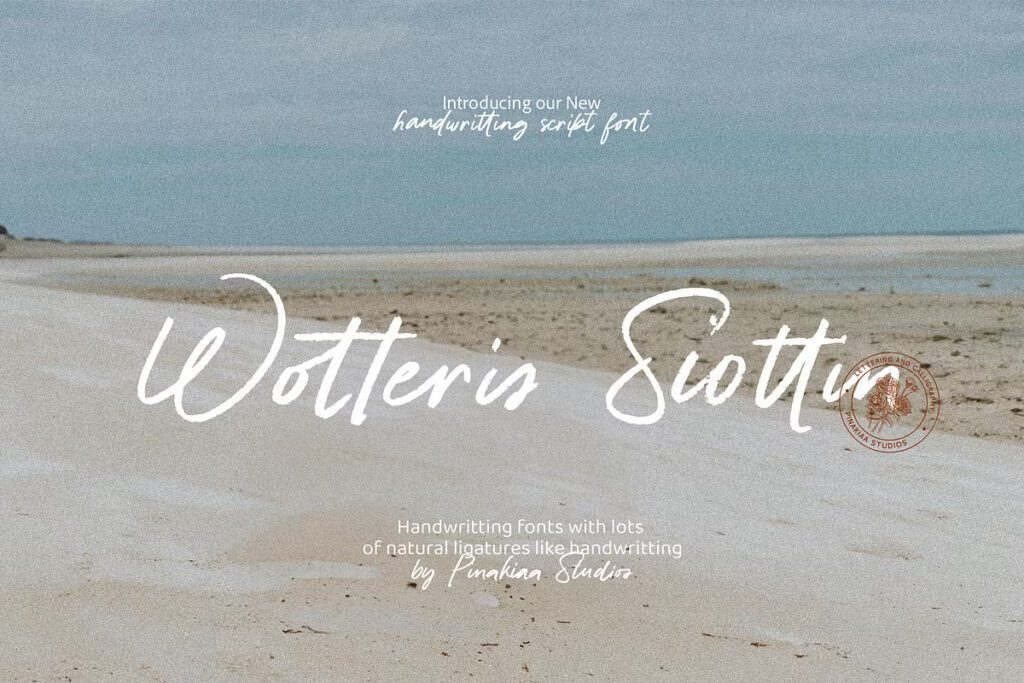
In the designer’s words
The listing on both Creative Market and MyFonts is written in the first person by the designer:
- “Wotteris Siottin is a handwriting font that has many connected letters to make it more beautiful and easy to read, because it is like most people’s handwriting.”
- “I made it simple but didn’t reduce the aesthetic value of the handwritting.”
- “This font is suitable for use as a product logo, letters, invitation, food menus, or post card for your loved ones, etc”
Two claims stand out: many letters connect, and the aim is readability over flourish. That places it closer to everyday pen writing than to a formal wedding calligraphy script.
We have not examined the font files, so we cannot say which letters join or how many glyphs it has. MyFonts has a glyph tab for the font; check it, and type a sample into the preview box, before you buy.
Using a connected handwriting font well
The designer’s suggested uses (product logos, invitations, food menus, postcards and letters) all suit short to medium text. A few general rules help with any connected script:
- Do not add letter spacing. Extra tracking pulls joined letters apart. Leave it at 0 in Canva, Word and Cricut Design Space.
- Avoid all capitals. Handwriting fonts are usually drawn for mixed case, and long runs of capitals read poorly.
- Give it size. Use it for names, headings and short lines, and set the details in a plain font.
Why does my Wotteris Siottin text look broken in Canva?
Check the letter spacing first. Any spacing above 0 can separate connected letters in a handwriting font.